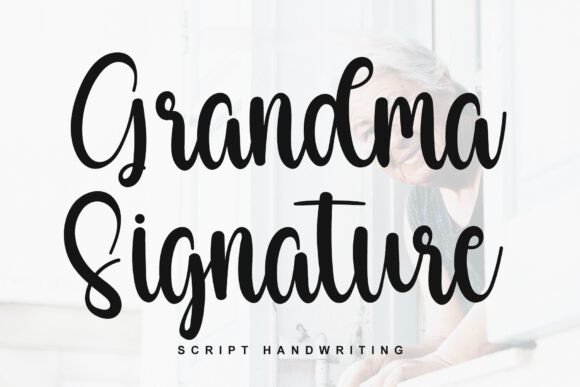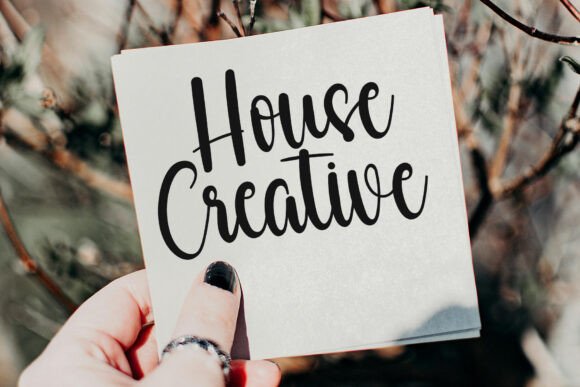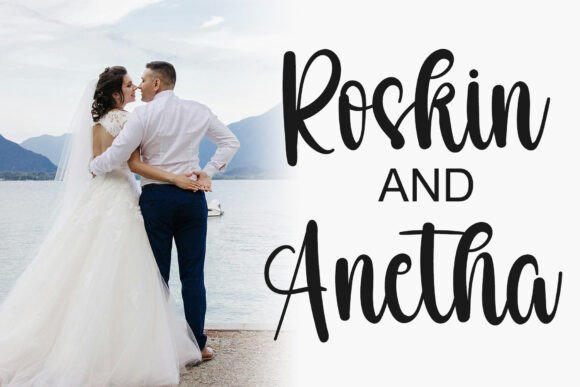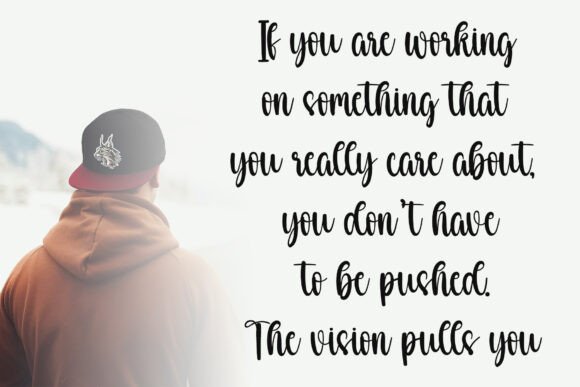
Grandma Signature Font
About the Grandma Signature Font
The Grandma Signature Font is here to transform your projects with its distinctive character and style. Grandma Signature is a sweet and cursive handwritten font. This gentle font will look gorgeous on a variety of design ideas. It will add a joyful and romantic touch to each of your projects! Perfectly fit for branding, logo, wedding things, greeting cards, fashion, look book, marketing promotion, anytime you want to look fancy elegant but still casual.
Grandma Signature’s playful, yet elegant, cursive style is ideal for headlines, short text blocks on invitations or greeting cards, and branding elements where a personal touch is desired. It works exceptionally well for projects related to weddings, fashion, beauty, or artisanal products. However, its delicate nature makes it unsuitable for body text or UI elements requiring high readability. Long paragraphs set in this font would be difficult to read.
Pairing Grandma Signature with a clean sans-serif like Lato for body copy creates a balanced and sophisticated aesthetic. For a more vintage feel, a classic serif like Garamond would complement its handwritten charm. Alternatively, a simple geometric sans-serif could provide a modern contrast, enhancing its inherent elegance.
The font’s overall personality is best described as friendly and approachable, yet refined. Its casual elegance makes it versatile, but mindful use is key to avoid compromising readability.
Grandma Signature Font Usage Examples
Grandma Signature Font Example